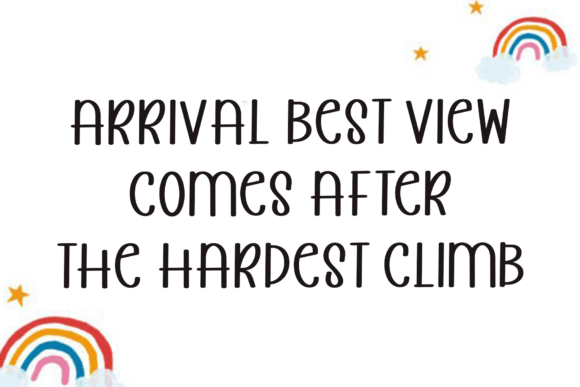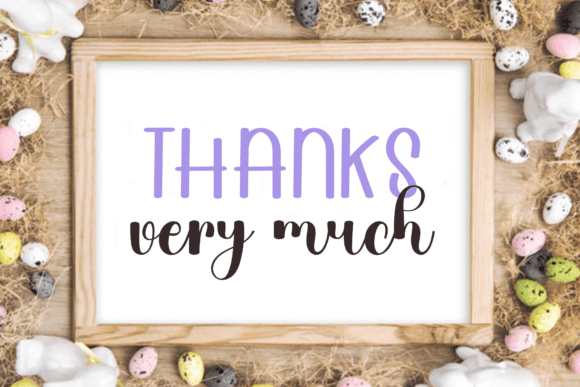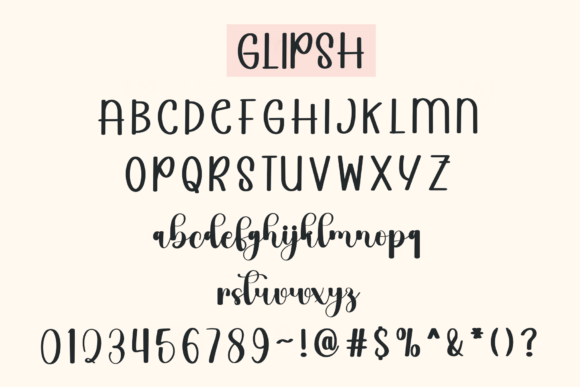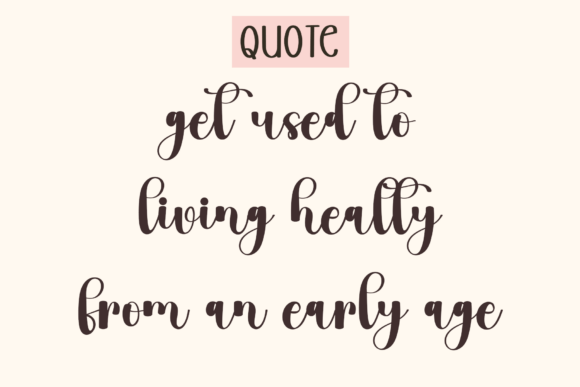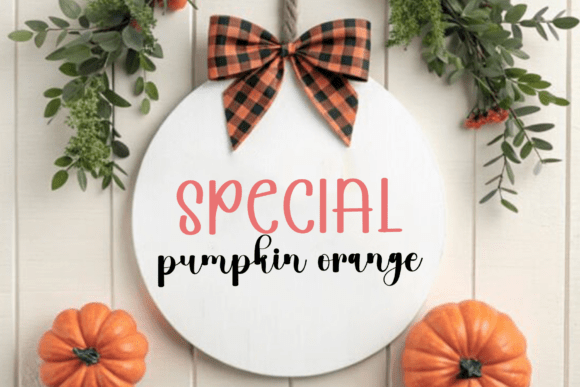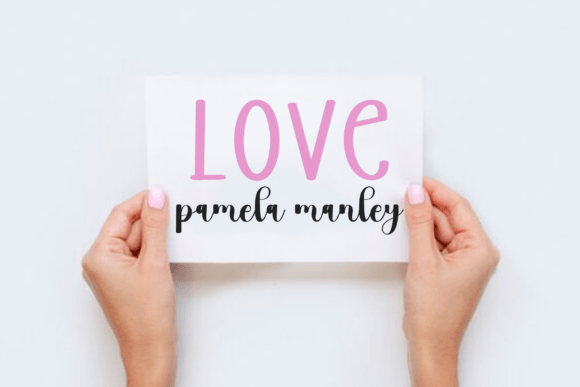
Introducing Arrival Heavenlight Font: The Ultimate Holiday Typeface
The holiday season is upon us, and what better way to get into the spirit than with a festive and merry typeface? Look no further than Arrival Heavenlight Font, a decorative and whimsical font that’s perfect for adding a touch of enchantment to your designs. Whether you’re a designer, crafter, or simply someone who loves the magic of the holiday season, this font is sure to bring a cheerful and nostalgic ambiance to your words.
What is Arrival Heavenlight Font?
Arrival Heavenlight Font is a beautifully crafted typeface that’s specifically designed to capture the spirit of the holiday season. With its decorative elements and whimsical flair, it’s the perfect addition to any holiday-themed project. From greeting cards and gift tags to festive posters and social media graphics, this font is sure to add a touch of magic to your designs.
Key Features of Arrival Heavenlight Font
- Decorative Elements: Arrival Heavenlight Font features a range of decorative elements, including intricate swashes, ligatures, and glyphs that add a touch of whimsy to your designs.
- Festive and Merry: Arrival Heavenlight Font is specifically designed to capture the spirit of the holiday season. Its cheerful and nostalgic ambiance is sure to put a smile on your face.
- Perfect for Holiday Projects: Whether you’re designing greeting cards, gift tags, or holiday-themed posters, Arrival Heavenlight Font is the perfect choice.
Why Choose Arrival Heavenlight Font?
So why choose Arrival Heavenlight Font over other holiday typefaces? Here are just a few reasons:
- Unique and Eye-Catching: Arrival Heavenlight Font is a truly unique and eye-catching typeface that’s sure to stand out from the crowd.
- Versatile: Arrival Heavenlight Font is perfect for a range of holiday-themed projects, from greeting cards and gift tags to festive posters and social media graphics.
- High-Quality: This font is crafted to the highest standards, ensuring a crisp and clear appearance even at small sizes.
How to Use Arrival Heavenlight Font
To get the most out of Arrival Heavenlight Font, be sure to experiment with the decorative elements and ligatures. These can add a touch of whimsy to your designs and help to create a truly unique and eye-catching look.
Here are a few tips and tricks for designers and crafters looking to get the most out of Arrival Heavenlight Font:
- Experiment with Different Sizes: Arrival Heavenlight Font looks great at a range of sizes, from small and delicate to large and bold.
- Combine with Other Fonts: Try combining Arrival Heavenlight Font with other fonts to create a unique and eye-catching look.
- Use on a Range of Projects: Arrival Heavenlight Font is perfect for a range of holiday-themed projects, from greeting cards and gift tags to festive posters and social media graphics.
- Don’t be Afraid to Get Creative: The decorative elements and ligatures in Arrival Heavenlight Font are designed to be used creatively. Don’t be afraid to experiment and try new things!
Arrival Heavenlight Font is a truly unique and eye-catching typeface that’s perfect for adding a touch of magic to your holiday designs. With its decorative elements, whimsical flair, and PUA encoding, it’s the perfect choice for designers, crafters, and anyone looking to create festive and merry holiday-themed projects. So why wait? Download Arrival Heavenlight Font today and let your typography shine with the magic of this beautiful font!